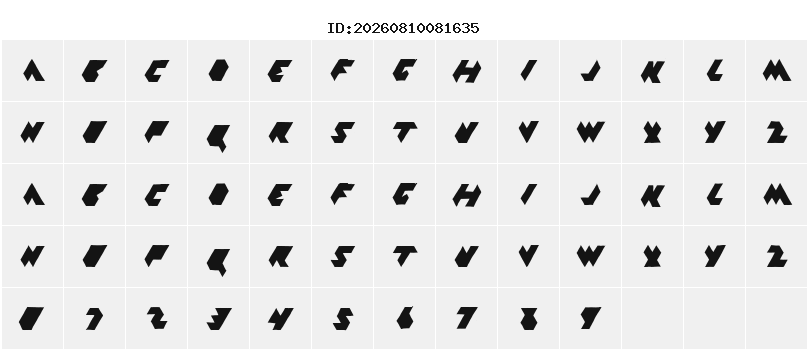
PGY Preview
• Font Name: PGY
• Font ID: PGY:Version 1.00
• Full Font Name: PGY
• Version: Version 1.00 June 3, 2011, initial release
• PostScript Name: PGY
• Designer: Julia Martinez Diana
About PGY.ttf
PGY.ttf is a modern, elegant sans-serif font designed for ultimate readability and visual harmony. Perfect for branding, headlines, web design, and print materials.